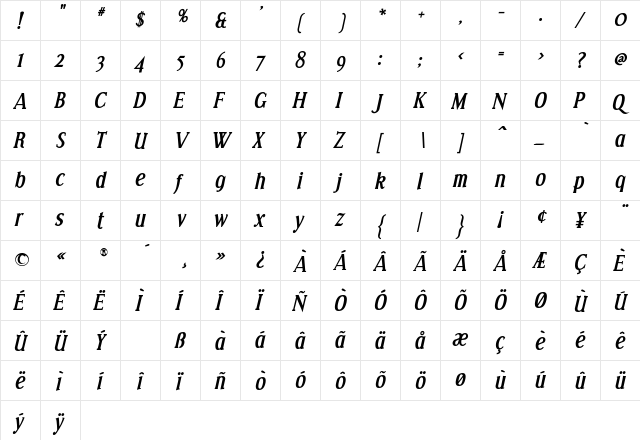
Effloresce Bold Italic
Design Context for Effloresce Typeface
Effloresce is a composed and adaptable typeface that performs quietly and consistently across a wide range of design contexts. Its italic angle brings a sense of urgency and motion to the letterforms. Its bold stroke weight gives it real presence on the page.
Pro Tip: Use Effloresce for emphasis, pull quotes, and subheadings where its slanted energy can add rhythm to the layout.